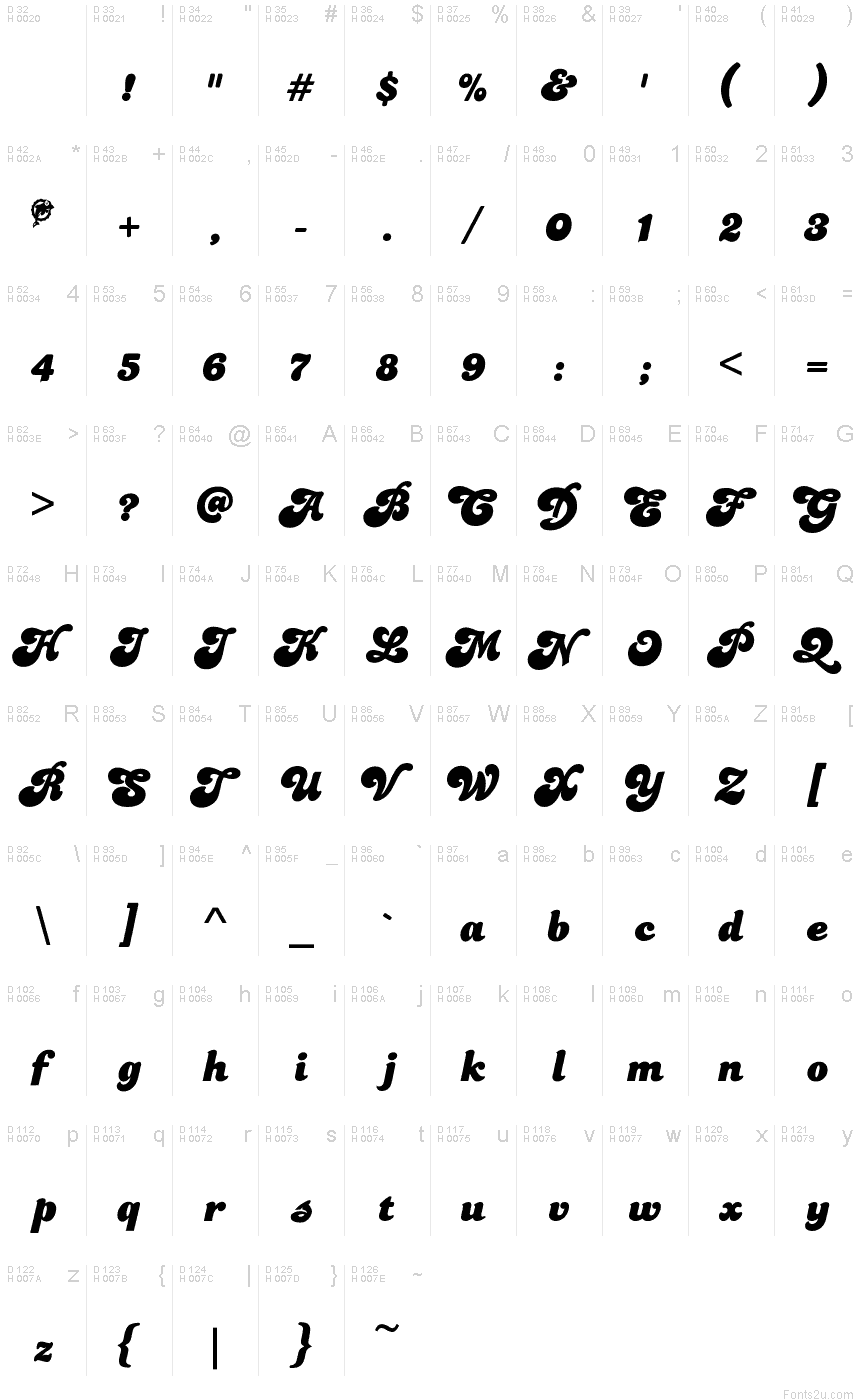
Dolphins
Dolphins font is a free curly script typeface that splashes playful energy across the page. Thick, inky strokes curl and dive like waves, while the bold weight keeps every word punchy and easy to read from a distance. There’s a soft, almost velvety feel to the letterforms, so even though the script is confident and loud, it never feels harsh or stiff.
Using Dolphins, this free font really shines on sports team branding, retro logos, beach-themed posters, merch graphics, and fun event titles. Its chunky curves also work beautifully for social media graphics and bold packaging that needs personality at a glance. Pair Dolphins with a clean geometric sans in small text, and let this script carry your main headline at larger sizes for maximum impact.